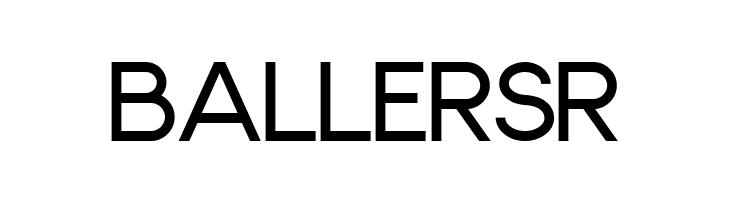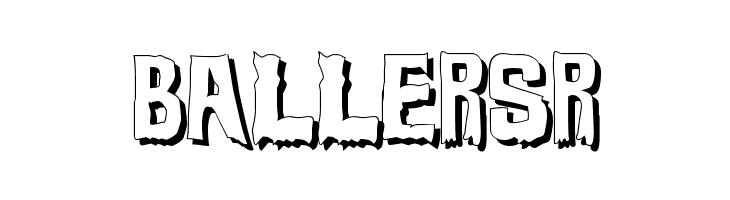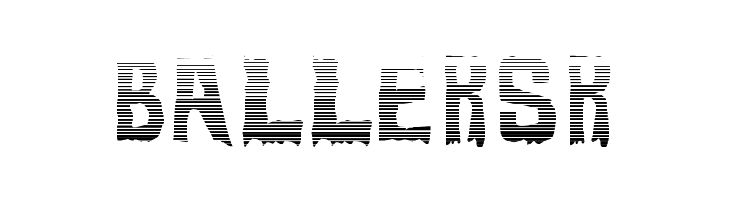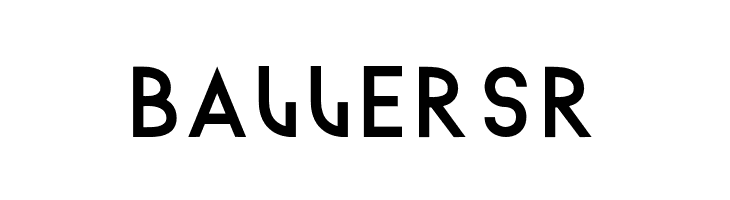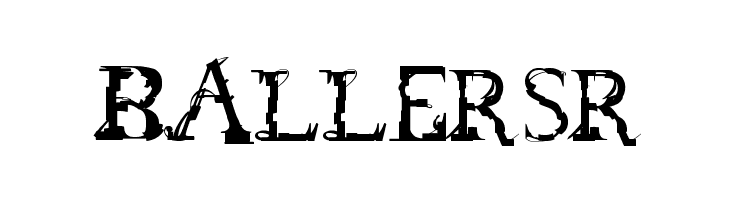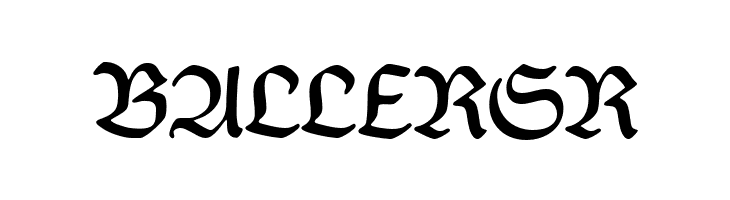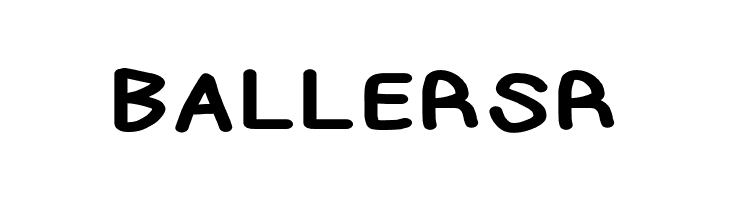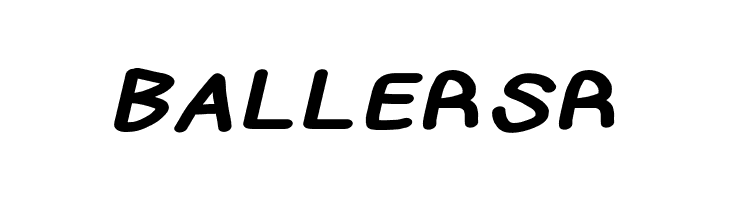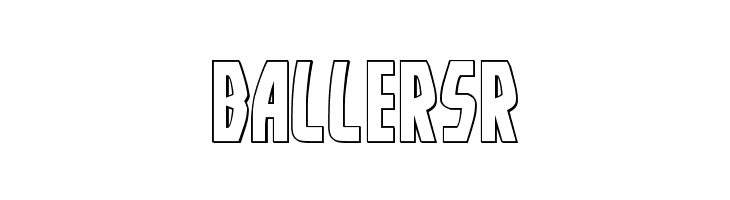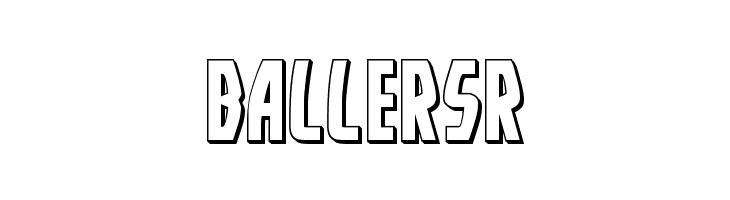
A bold, futuristic font with sharp, angular lines and a geometric design.
A bold, futuristic font with sharp, angular lines and a techno-inspired design.
An edgy, distressed font with jagged edges and chaotic strokes.
A classic blackletter font with ornate, angular letterforms and a medieval aesthetic.
A playful, rounded font with a hand-drawn, casual style.
A playful, handwritten-style font with an oblique slant and smooth, rounded strokes.
A bold, geometric font with minimal serifs and consistent stroke widths.
A bold, outlined font with a geometric, modern style.
A bold, 3D outlined font with a strong, angular design.
A bold, angular font with a dynamic, geometric style.
A bold, geometric stencil font with a futuristic and industrial style.
A bold, angular font with sharp geometric shapes.
A bold, semi-italic font with sharp angles and a dynamic, modern style.
A bold, italicized font with a gradient effect, conveying speed and modernity.
A bold, striped, 3D-effect font with a futuristic style.
A bold, geometric font with a dynamic halftone effect.
A bold, blocky font with thick outlines and sharp angles, perfect for impactful designs.
A bold, italicized font with a 3D chrome effect and a futuristic, decorative style.
A bold, decorative font with a gradient effect created by varying horizontal lines.
A bold, beveled font with a three-dimensional, decorative style.
A bold, italic font with a halftone effect and a modern, dynamic style.
A bold, italicized font with sharp angles and a dynamic slant.
A bold, italicized font with strong outlines and dynamic angles.
A bold, italicized font with a beveled, three-dimensional look.
A bold, italicized font with sharp, angular edges and a dynamic, modern style.
A bold, gothic-inspired font with curvy, pointed characters.
A bold, hollow decorative font with playful curves and pointed ends.
A bold, decorative font with a gothic, monstrous style.
A bold, gothic-inspired font with sharp edges and flowing curves.
A bold, italicized font with a monstrous and playful design.
A bold, hollow, gothic-style font with sharp, angular edges.
A pixelated, blocky font with a retro digital style.
A bold, shadowed font with a jagged, horror-inspired style.
A bold, striped font with a distressed, horror-themed aesthetic.